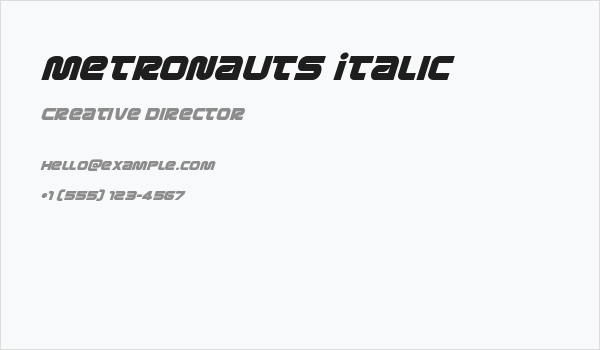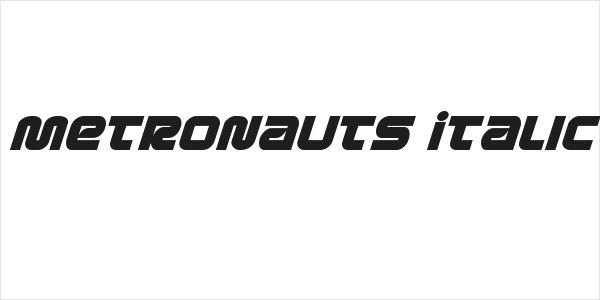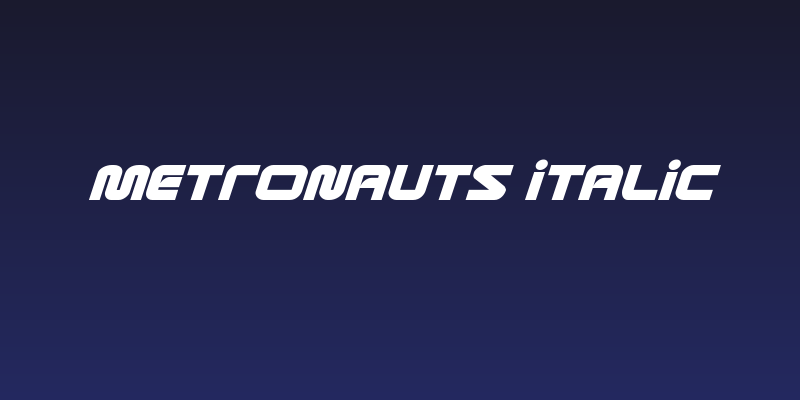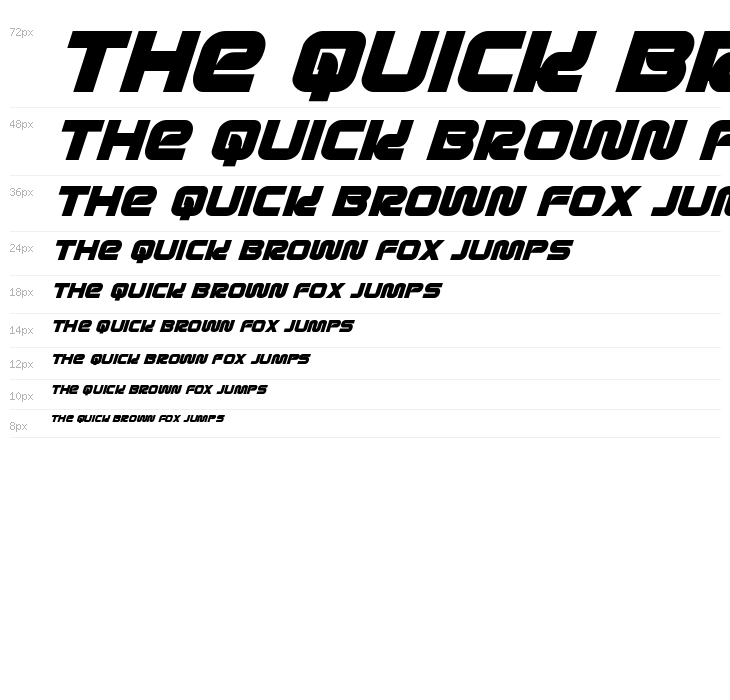
Metronauts Italic Font
Metronauts Italic Description
This font features a bold and futuristic design with a distinct italic slant, giving it a sense of motion and modernity. The characters are wide and have a strong presence, making them ideal for impactful headlines and attention-grabbing designs. The geometric shapes and clean lines contribute to its contemporary aesthetic, while the consistent stroke width ensures readability. The font includes a full set of uppercase and lowercase letters, numerals, and a variety of special characters, making it versatile for different design needs.
| Proposed Projects | Ideal for futuristic branding, tech-related projects, sports team logos, and dynamic posters. |